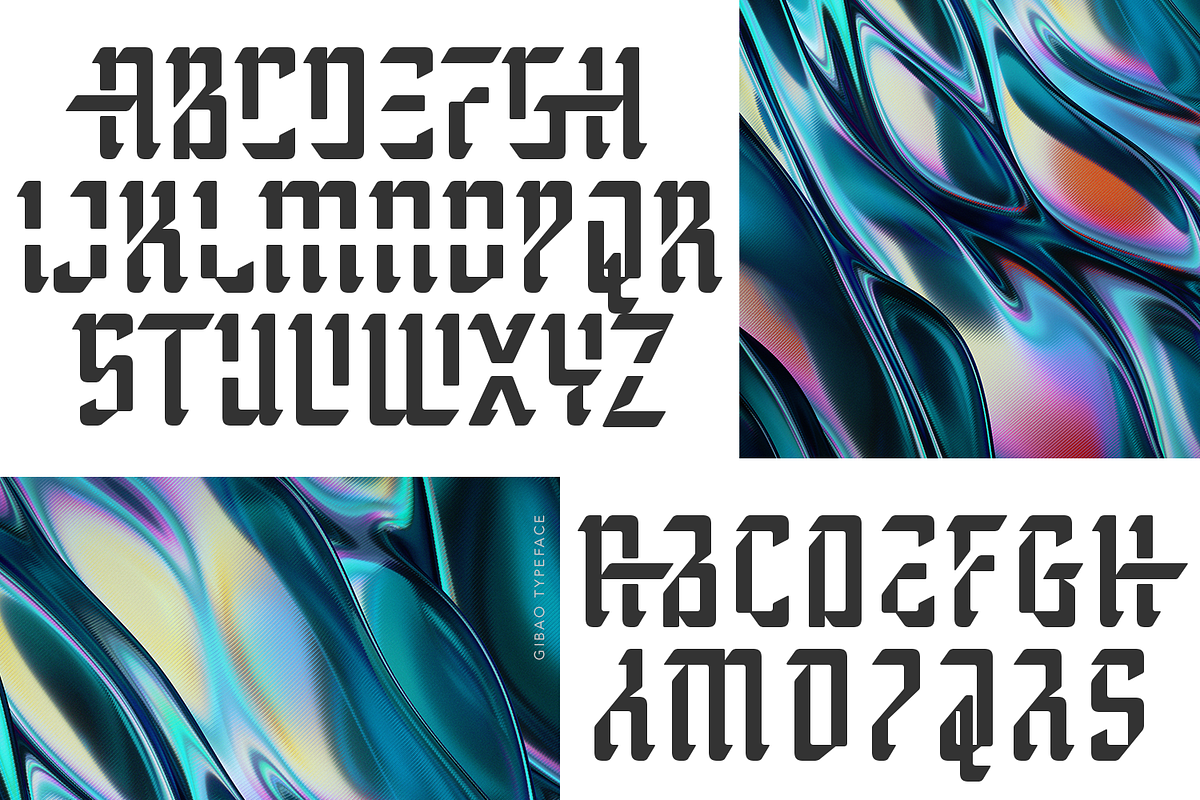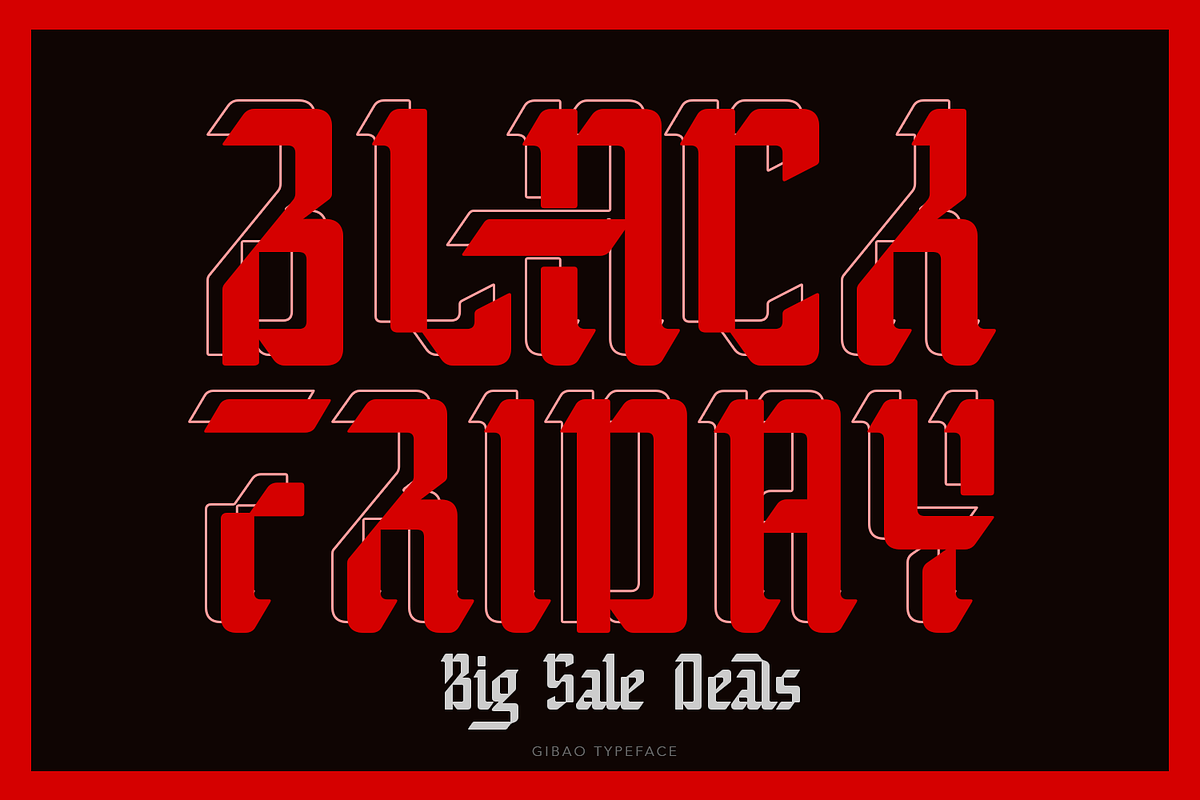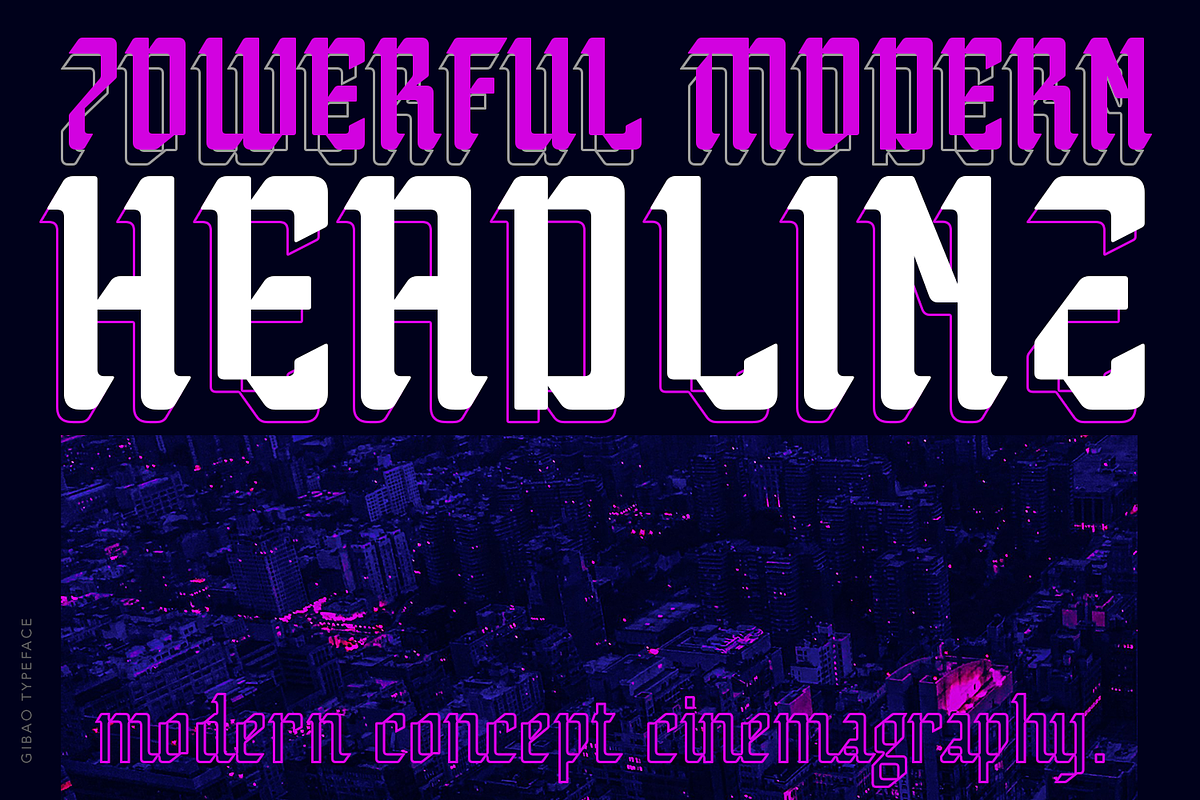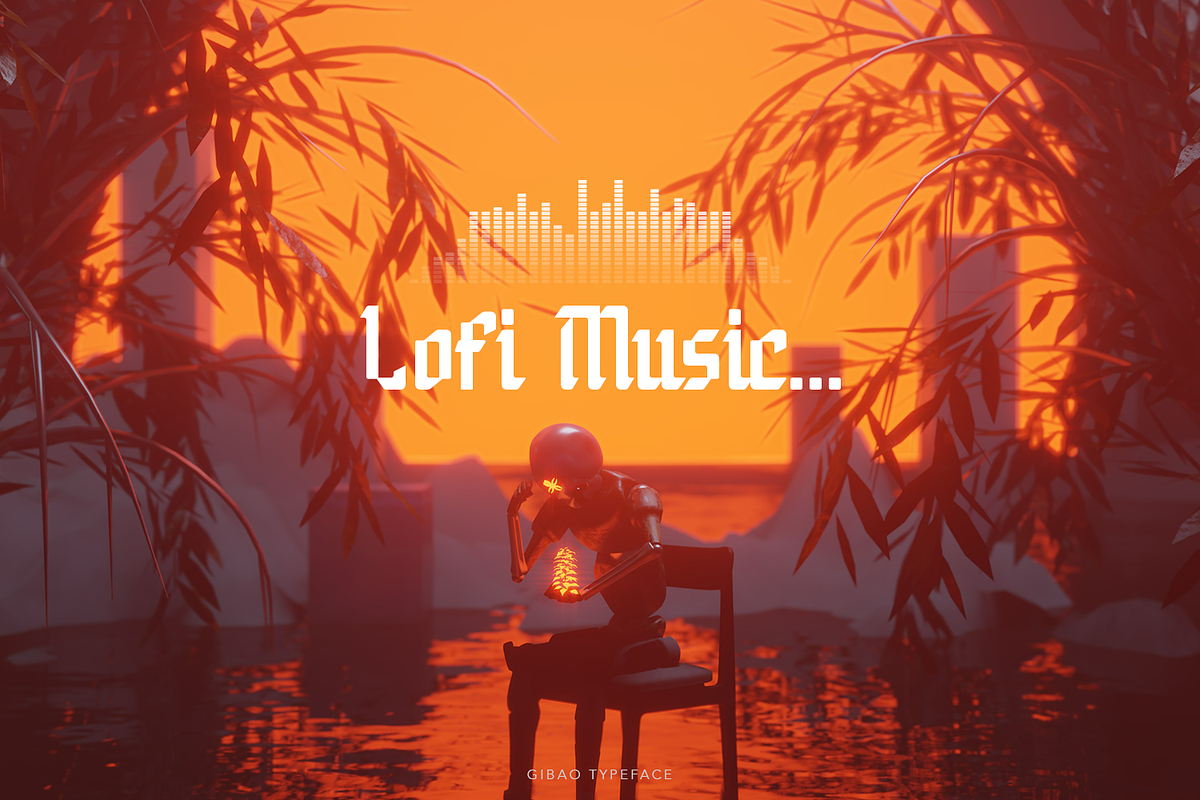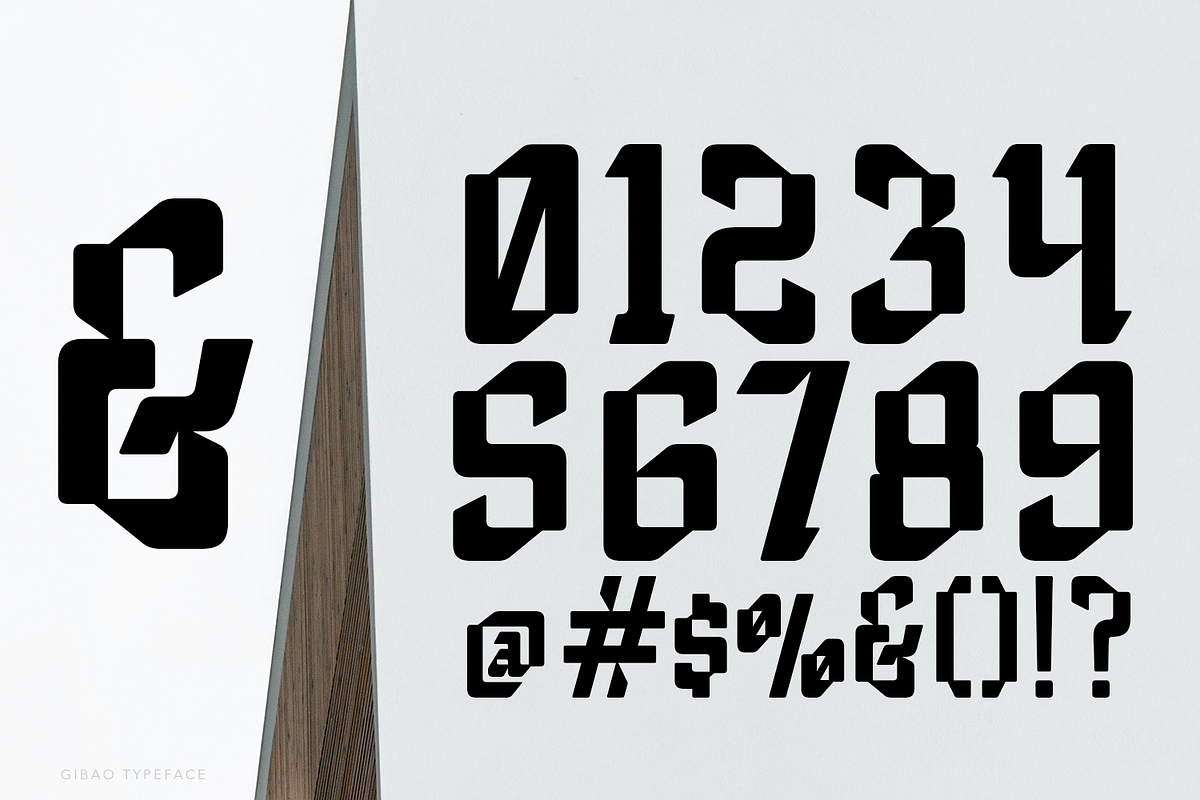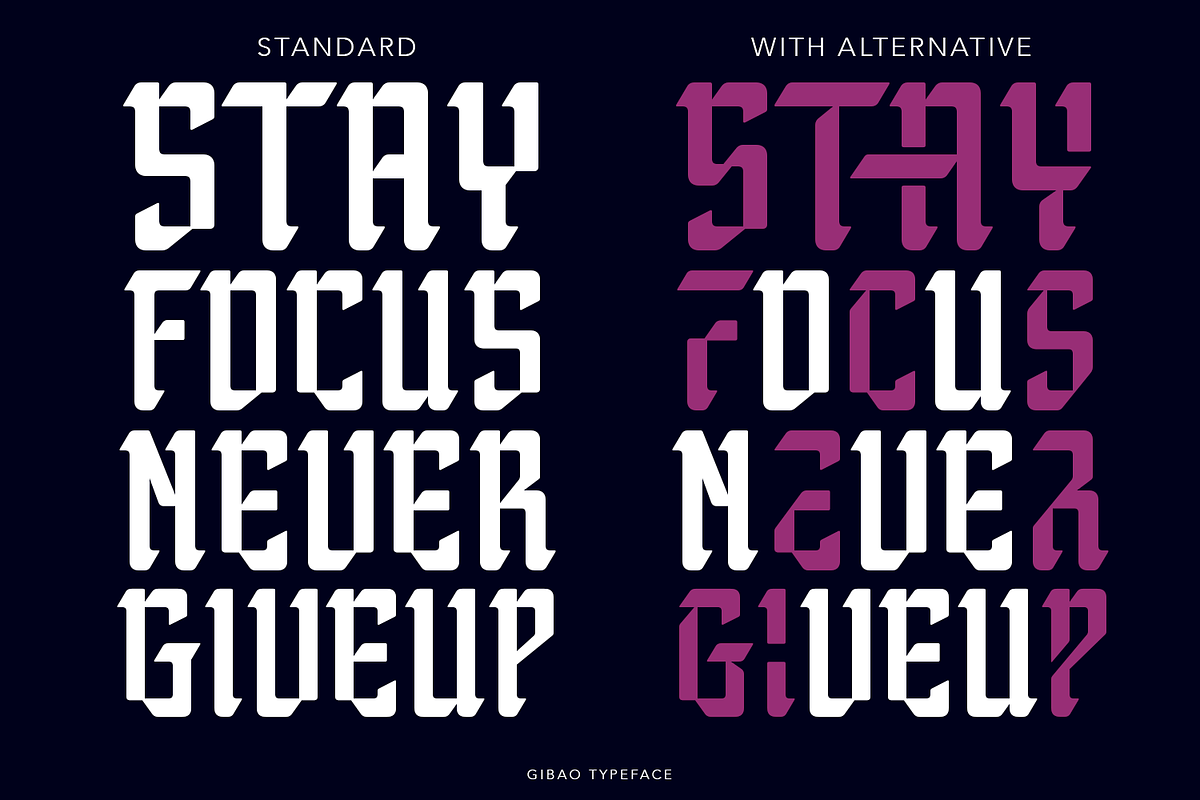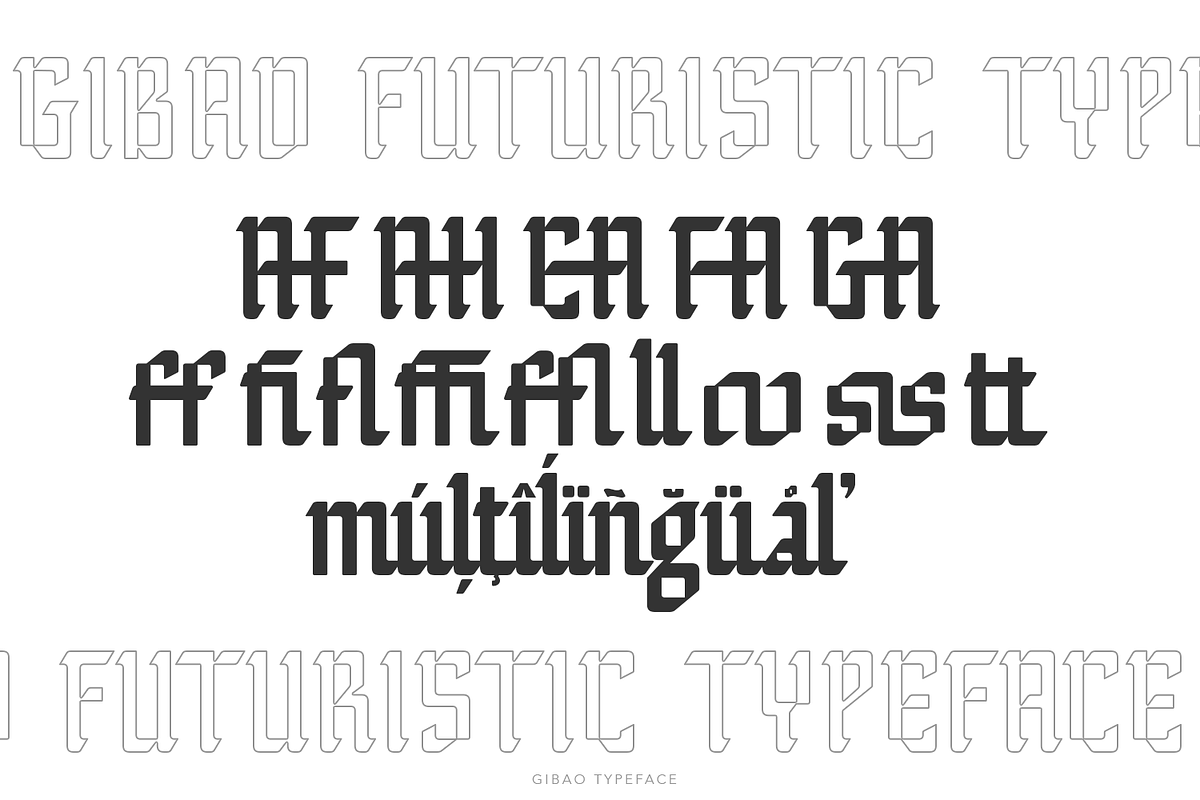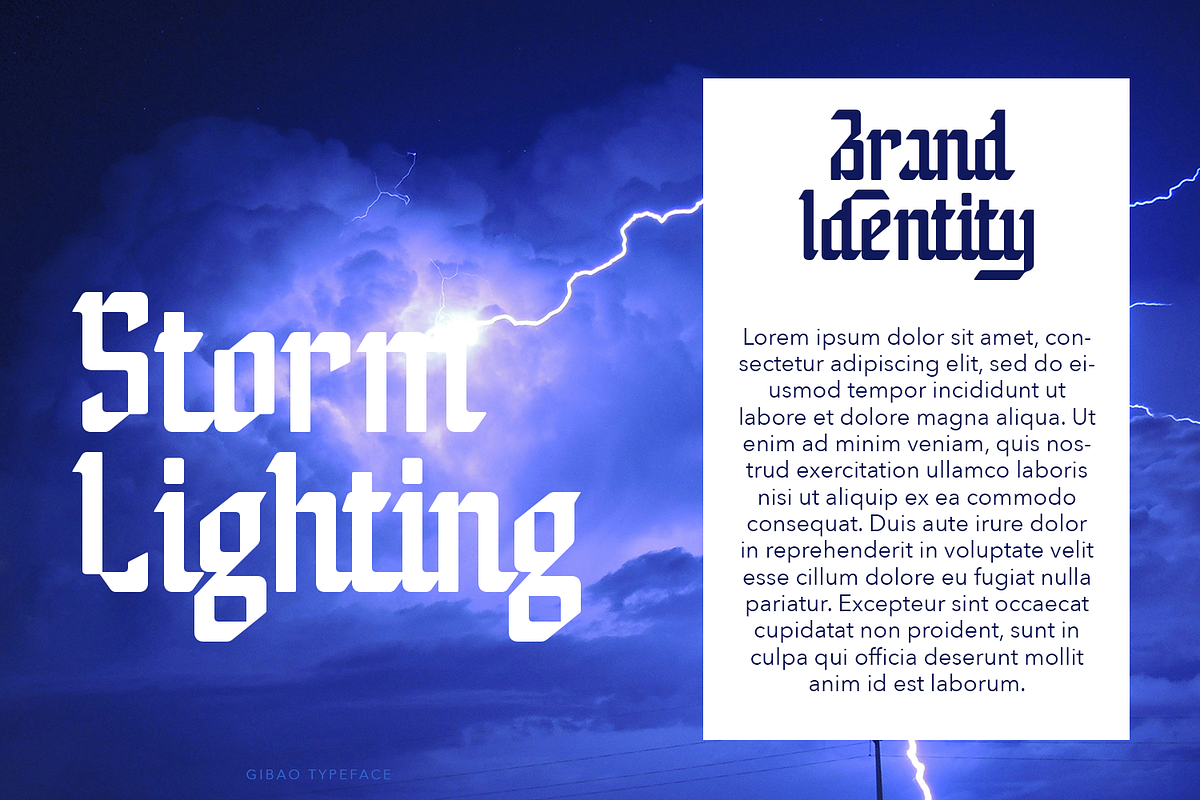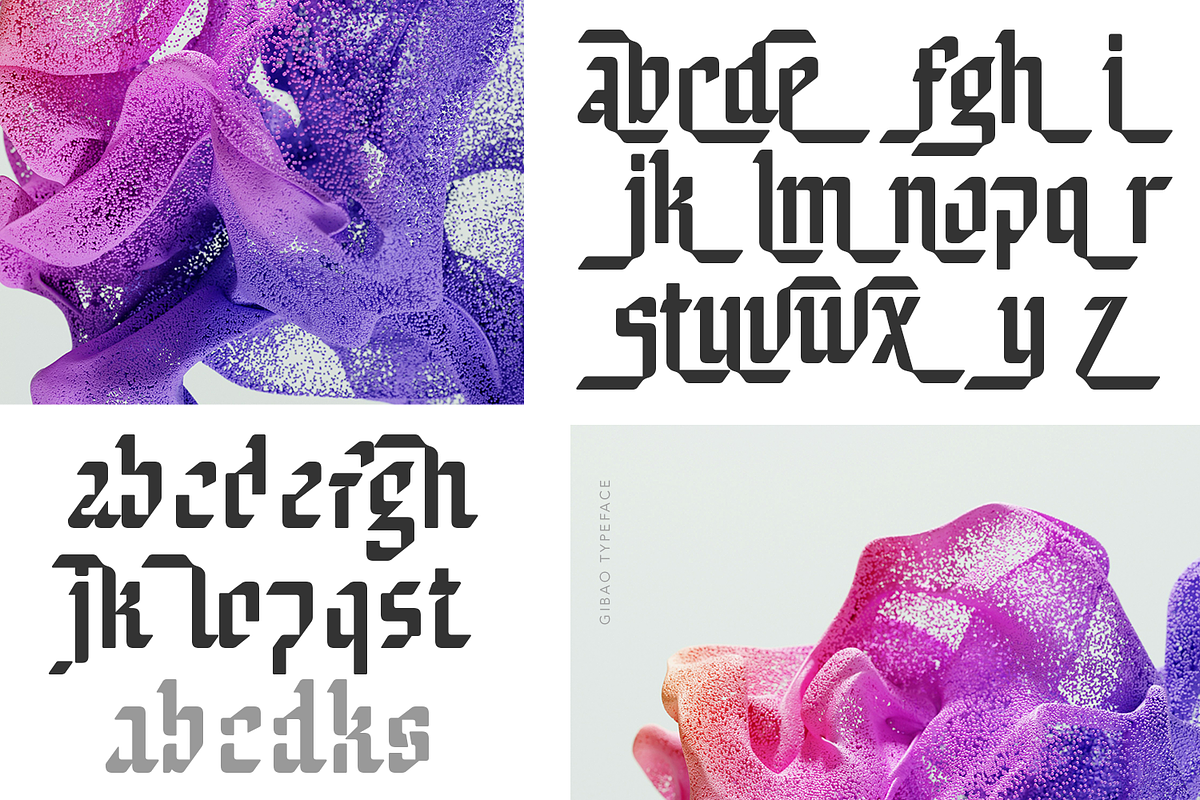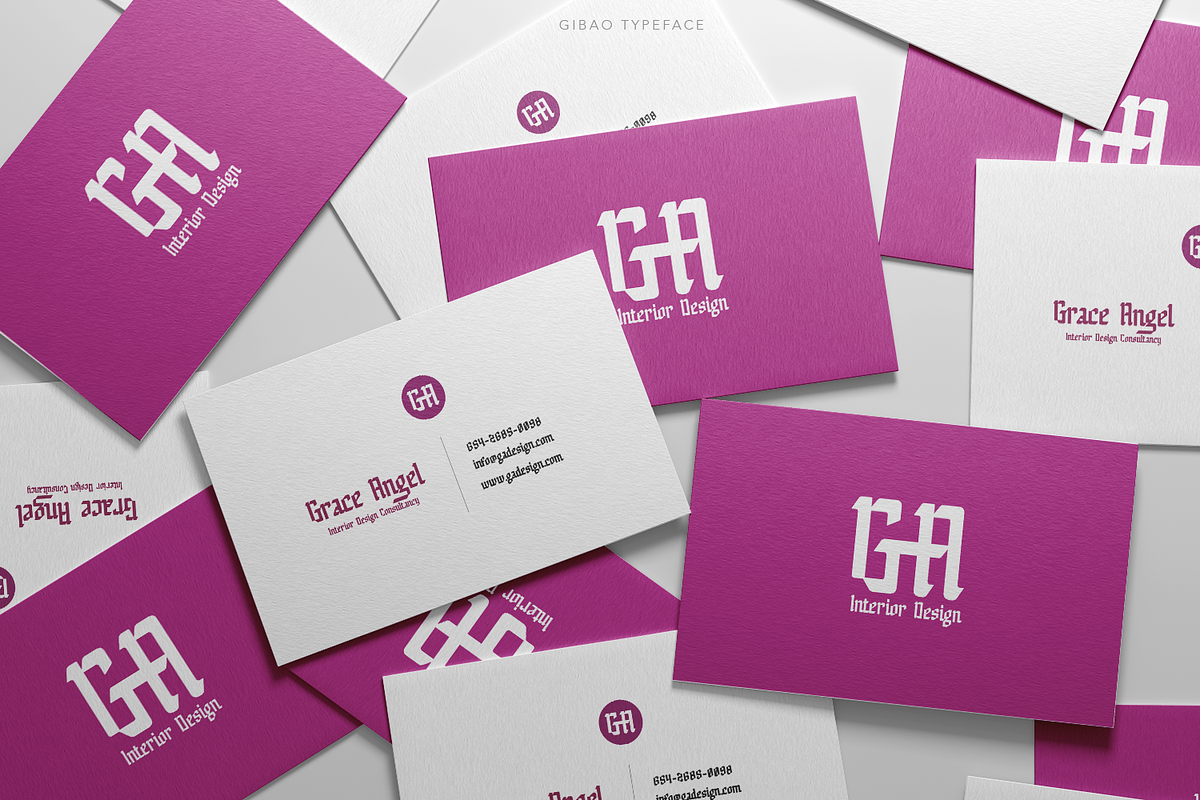
Gibao Typeface
Introducing Gibao Typeface, each character is carefully crafted to raise a futuristic. Featuring lines and geometric shapes remind of advanced technology. This font stands out with its unique features, making it perfect for modern logotype creation tool.
- International Glyphs